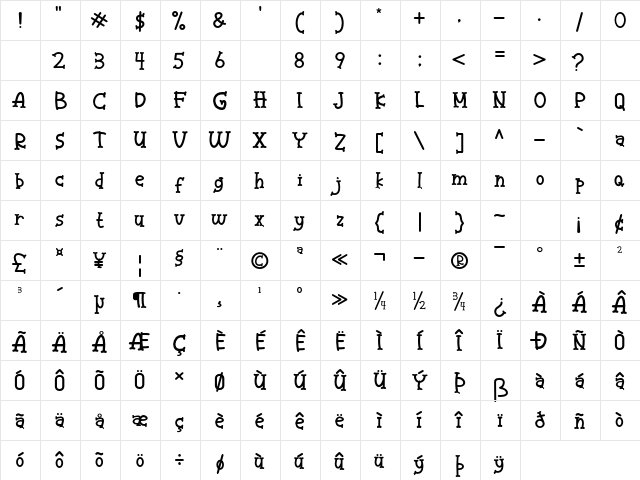
Sweet Honeymoon Regular
Design Context for Sweet Honeymoon Typeface
Sweet Honeymoon is a composed and adaptable typeface that performs quietly and consistently across a wide range of design contexts.
Pro Tip: Use Sweet Honeymoon in both headline and body roles to test its range before committing to a single application.